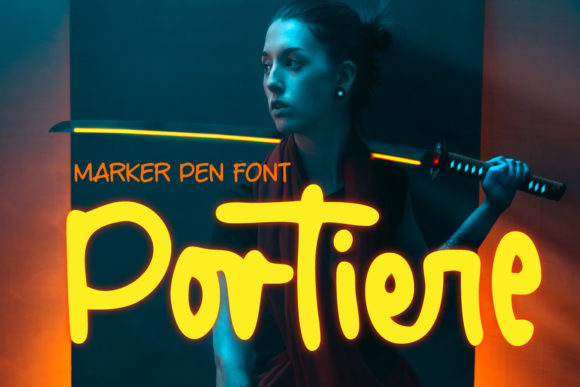
"Step into the world of Portiere, where script dances with charm and elegance!
Embark on a typographic odyssey with this captivating brushed handwritten font from the renowned Cititype foundry. Portiere's playful strokes, infused with a touch of whimsicality, will ignite your creativity.
From breathtaking wedding invitations to heartfelt love letters, Portiere seamlessly molds itself to your artistic vision. Its friendly and approachable nature makes it a darling for personal branding, adding a dash of warmth to your greetings and social media musings.
Unleash your inner wordsmith with Portiere! Its inviting strokes beckon you to pour your heart into every word, leaving a lasting impression on your readers. Whether it's capturing the essence of your favorite quotes or crafting enchanting stories, this captivating script will effortlessly elevate your words.
Portiere's versatility extends beyond personal expression. It effortlessly lends its charm to packaging, posters, and branding materials. Its ability to harmoniously blend with other fonts makes it a team player in your design endeavors.
Prepare to be captivated by Portiere, a font that breathes life into your creative visions. Its every curve and stroke is a testament to the boundless possibilities of expression. Embrace the magic of Portiere today and let your imagination soar!"